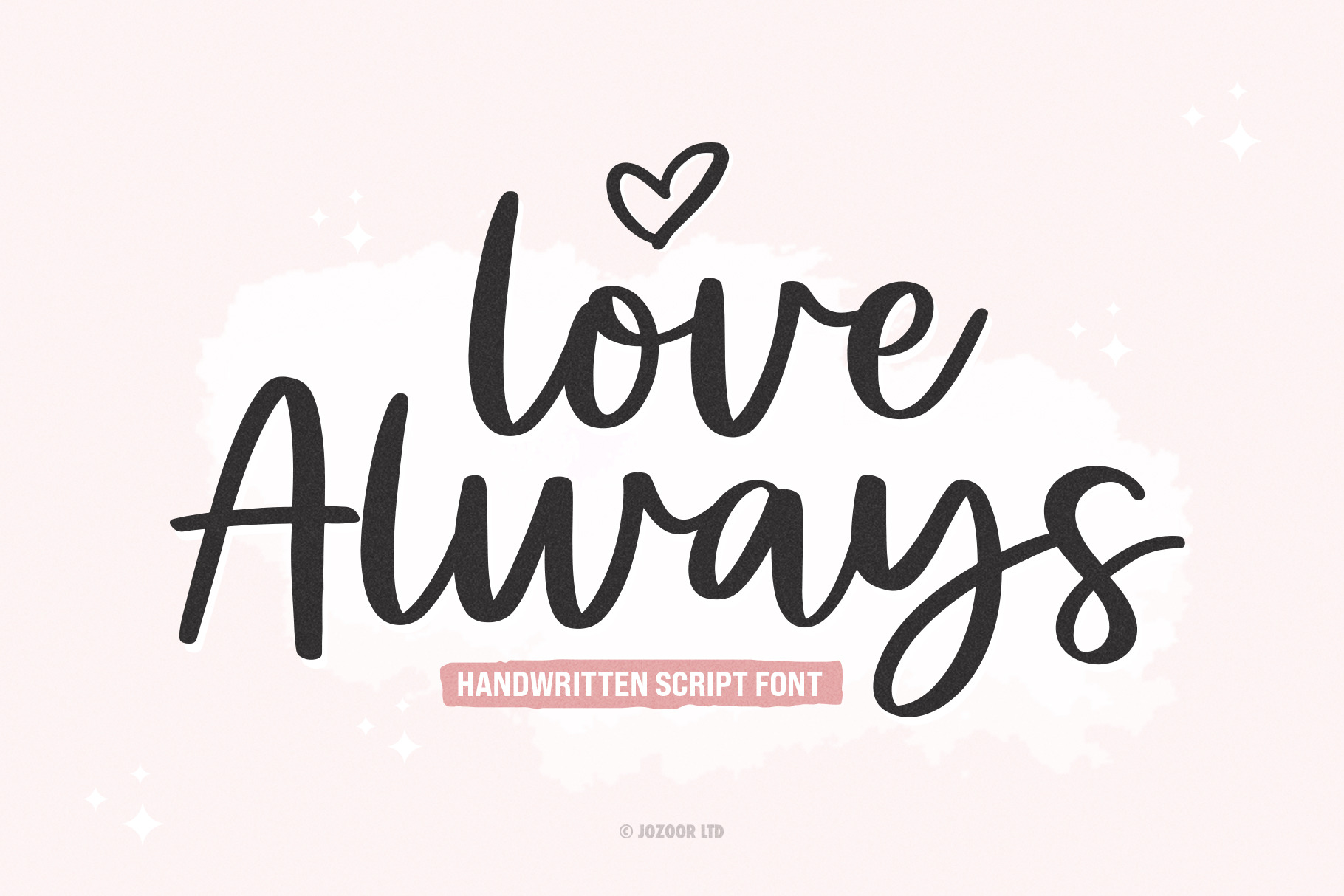
Love Always is a modern, stylish, and flowing handwritten script font. It has beautiful and well-balanced characters and as a result, it matches a wide pool of designs. It is the best choice for creating eye-catching logos, branding, and quotes. Add it to your most creative ideas and notice how it makes them come alive!